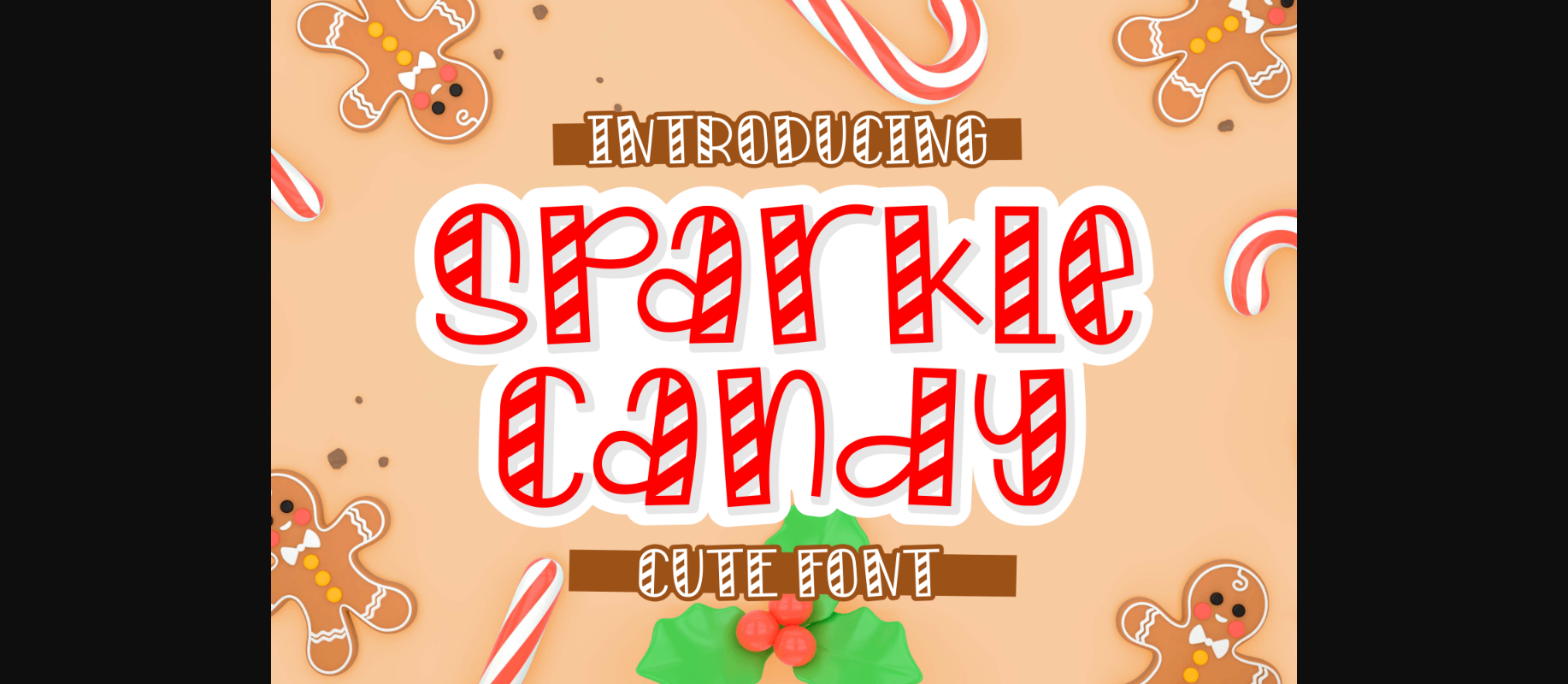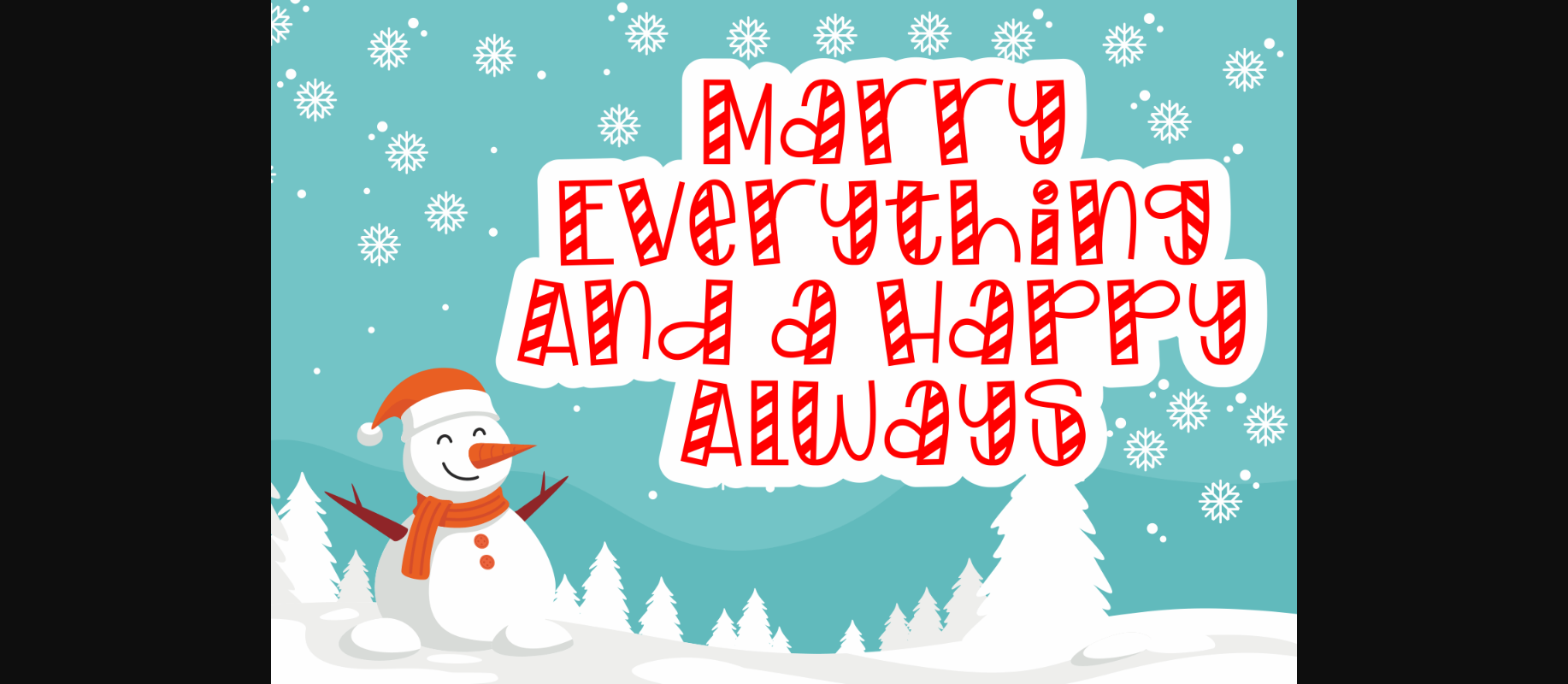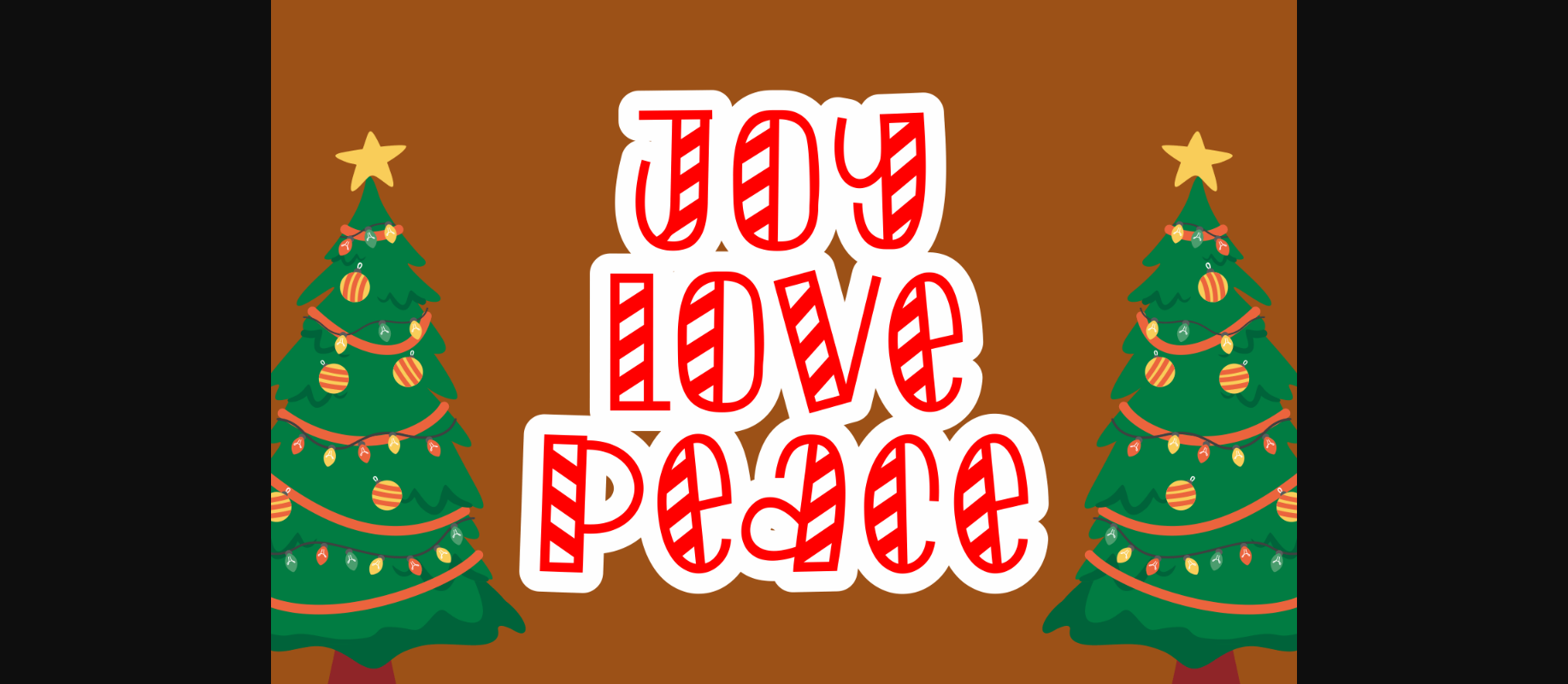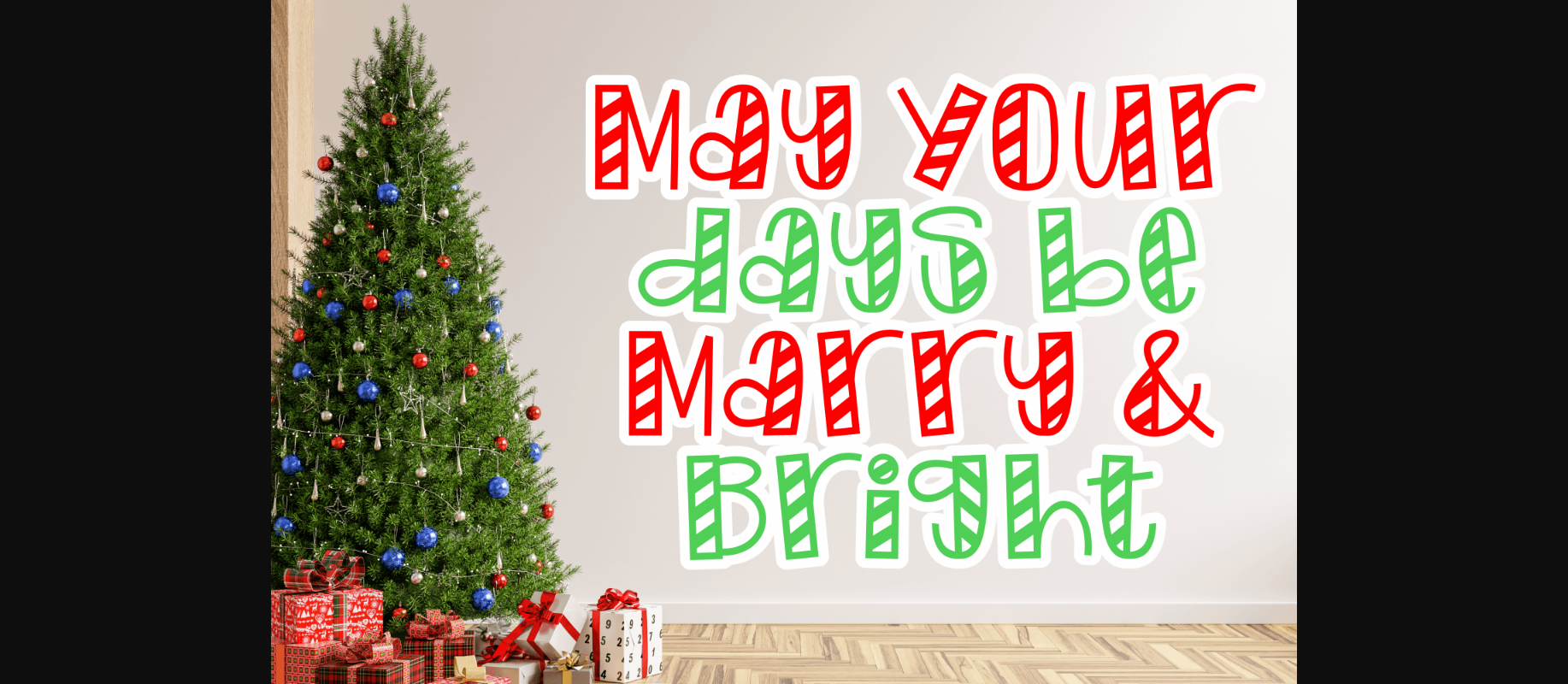
About Sparkle Candy Font
Sparkle Candy is a sweet and delicious decorative font. Its whimsical and festive vibe is perfect for creating stunning Christmas cards, decorations, posters, invites, or anything that needs a cozy touch. This font is PUA encoded which means you can access all the glyphs and ligatures with ease!